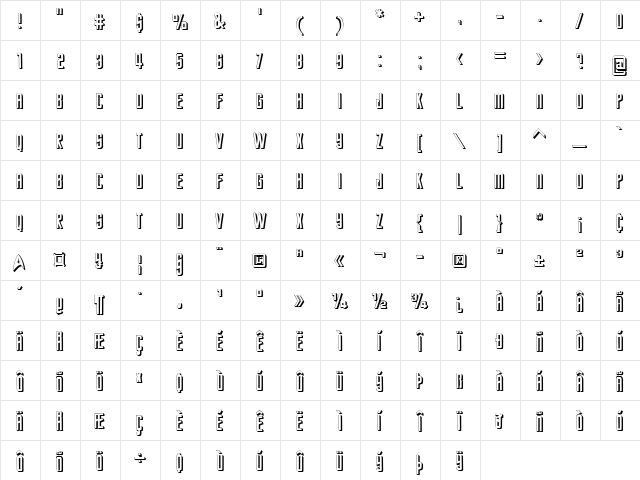
Star Trek Future Regular
| Foundry | P. A. Vannucci |
| Designer | P. A. Vannucci |
Design Context for Star Trek Future Typeface
Star Trek Future channels digital-age aesthetics through its sharp, structured letterforms — ideal for brands that want to signal innovation.
Pro Tip: Use Star Trek Future in combination with a neutral sans for body text. Let it define the brand voice in headlines while keeping reading comfortable elsewhere.